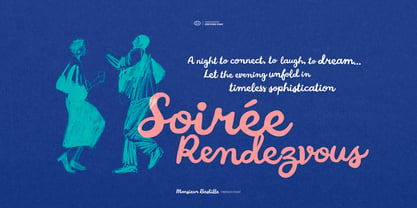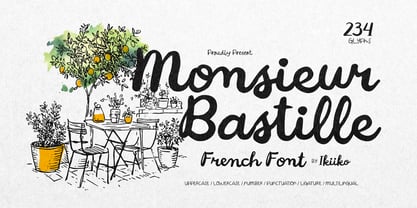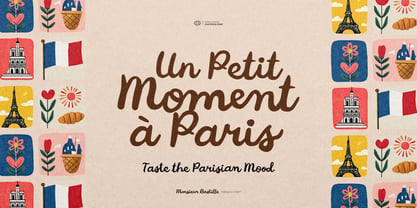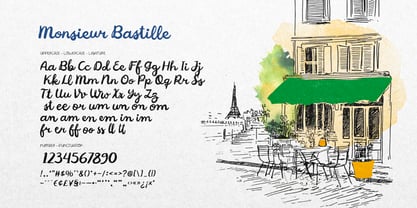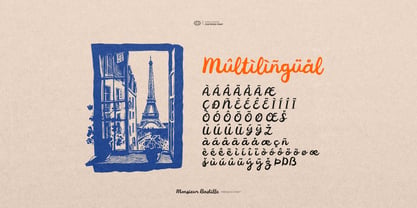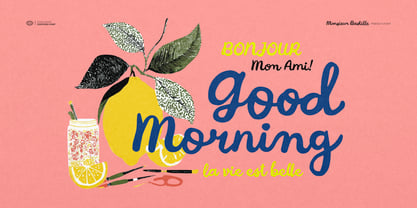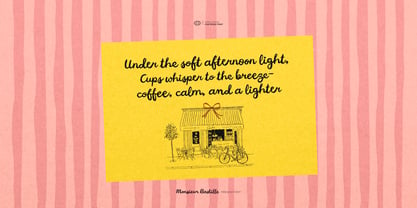
Monsieur Bastille
by IKIIKOWRK
The Monsieur Bastille Font Family was designed by Andhika Pradana and published by IKIIKOWRK. Monsieur Bastille contains 1 styles. More about this family
Proudly Present Monsieur Bastille - French Font, created by ikiiko. Monsieur Bastille is a font that brings warm café Vibes, Handmade charm, and expressive Handwriting energy into every design. Inspired by the streets of Paris, this typeface blends the soul of traditional Art with the raw texture of modern Painting, creating a fresh yet nostalgic aesthetic that feels effortlessly chic. Crafted with a human touch, Monsieur Bastille captures authentic handmade strokes—bold, smooth, and full of personality—making it perfect for branding and anything that needs that unmistakable French vibes look. Whether you're designing for a dreamy Parisian café brand or adding artistic flair to your digital creations, Monsieur Bastille brings the spirit of Paris, the warmth of traditional art, and the fluid romance of real handwriting in one beautiful, expressive font. This font is perfect for a French style posters, traveling stuff, cafe branding, packaging, book cover, social media ads, invitations, food & beverages, quotes, or simply as a stylish text overlay to any background image. What's Included? Uppercase & Lowercase Numbers & Punctuation Ligature Multilingual Support Works on PC & Mac Get also a good offer & FREEBIE at our site Enjoy our font and if you have any questions, you can contact us by email
Designers: Andhika Pradana
Foundry: IKIIKOWRK